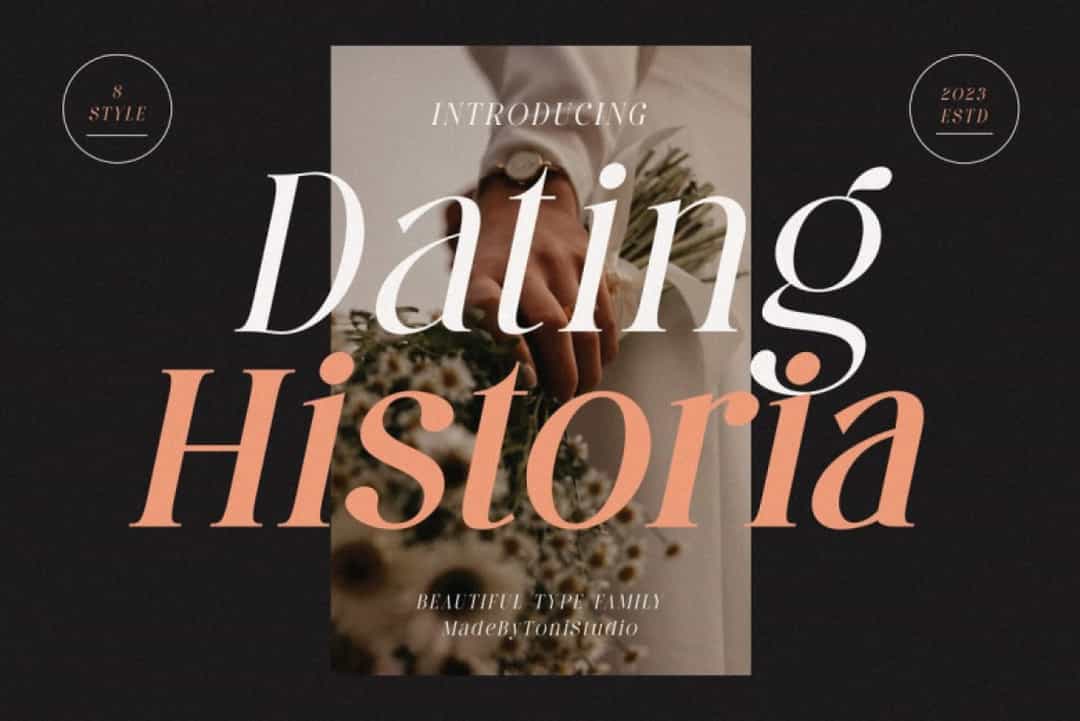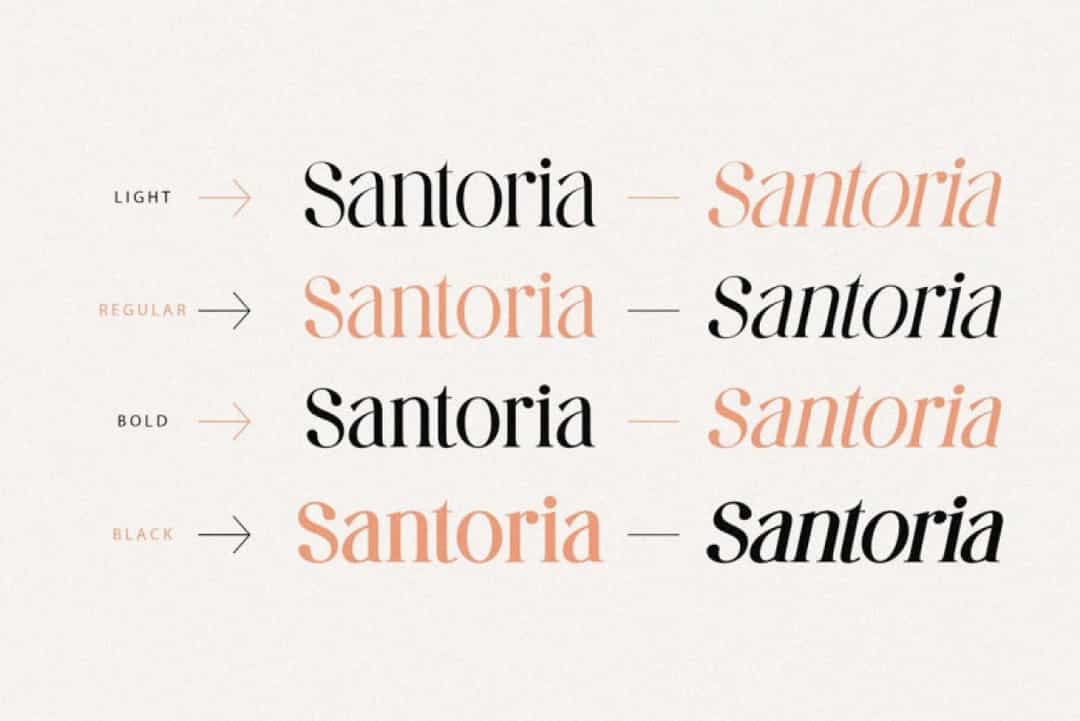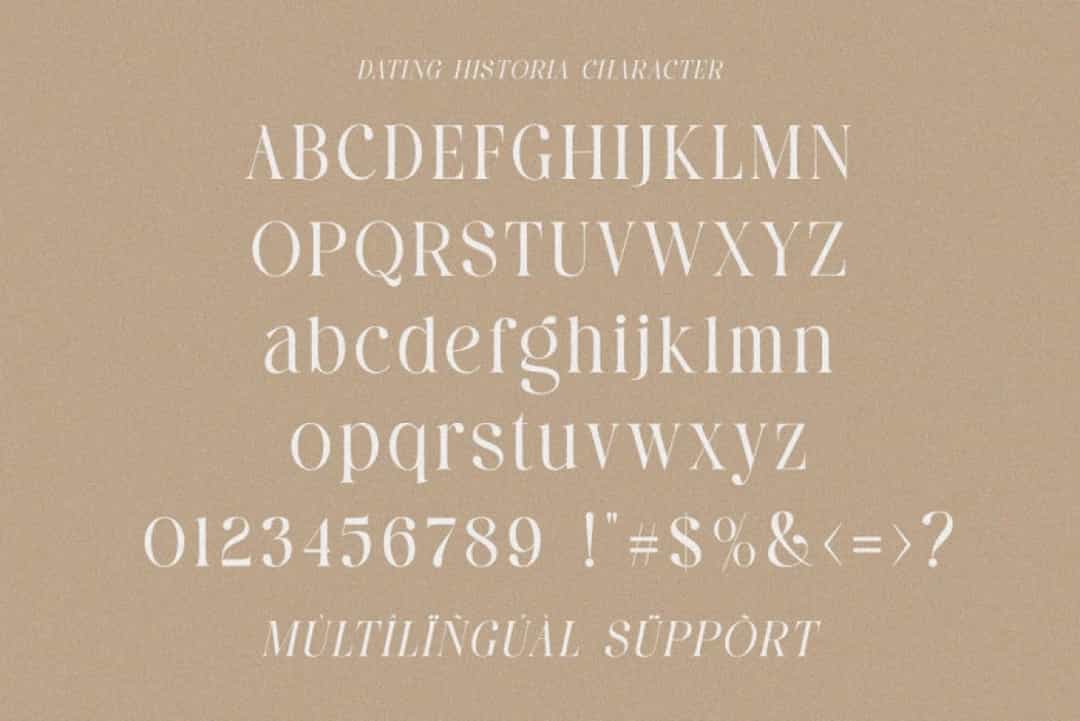
Dating Historia is an eight-style font family featuring regular and italic versions in regular font sizes with regular italic italic characters for a modern and sophisticated style of typography. Available at different levels with integrated Condensed forms that can create striking effects; as well as numerous font styles to fit any style for added visual impact and contrast in font designs.